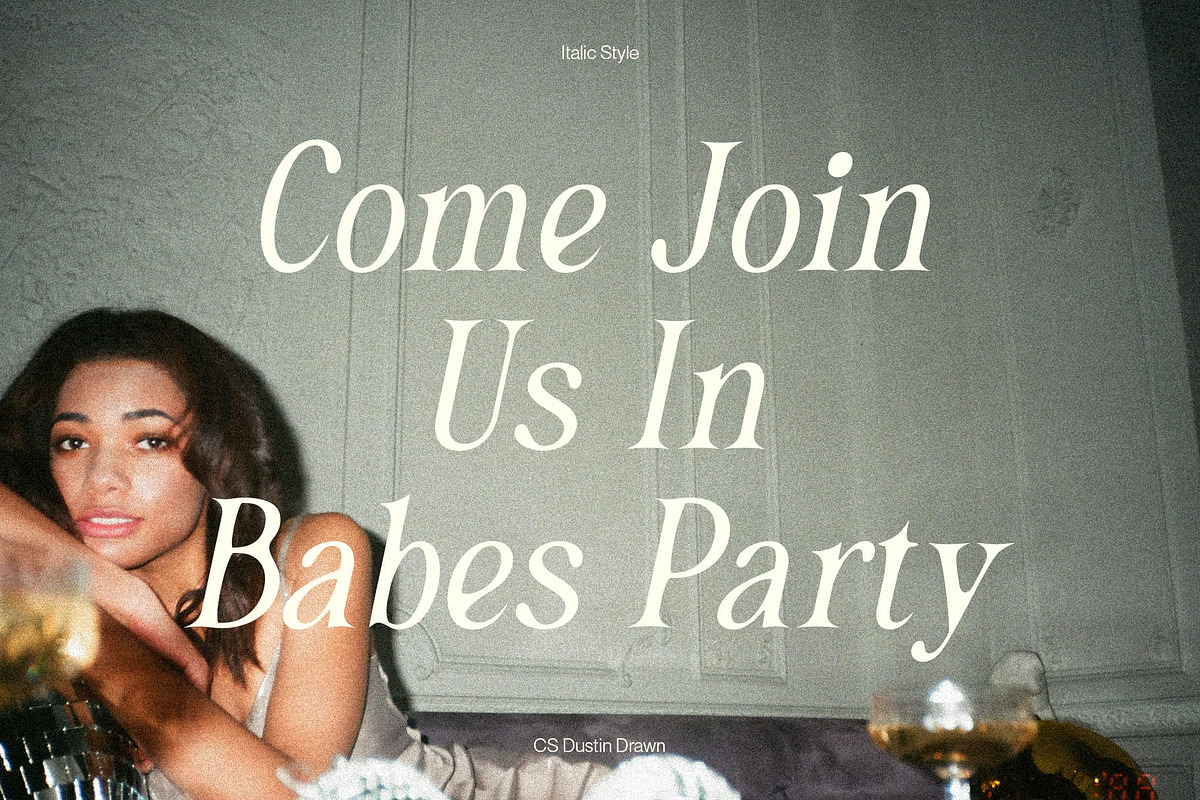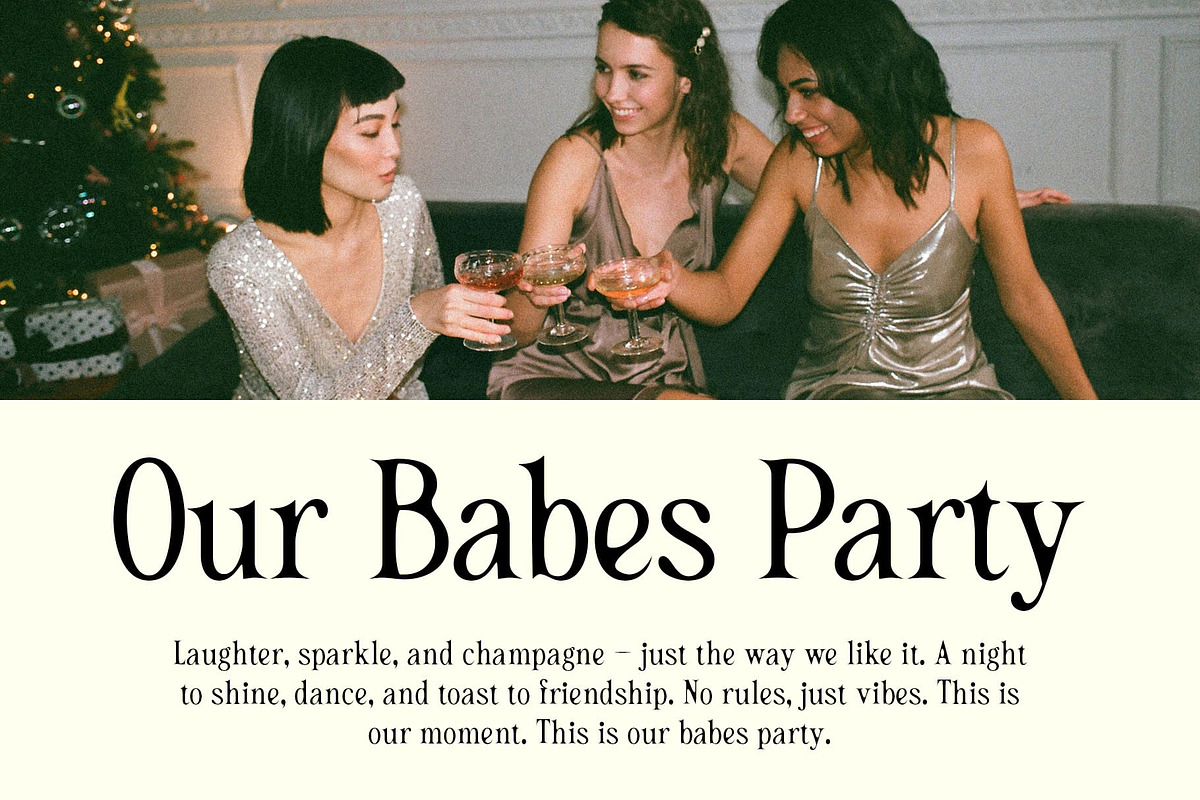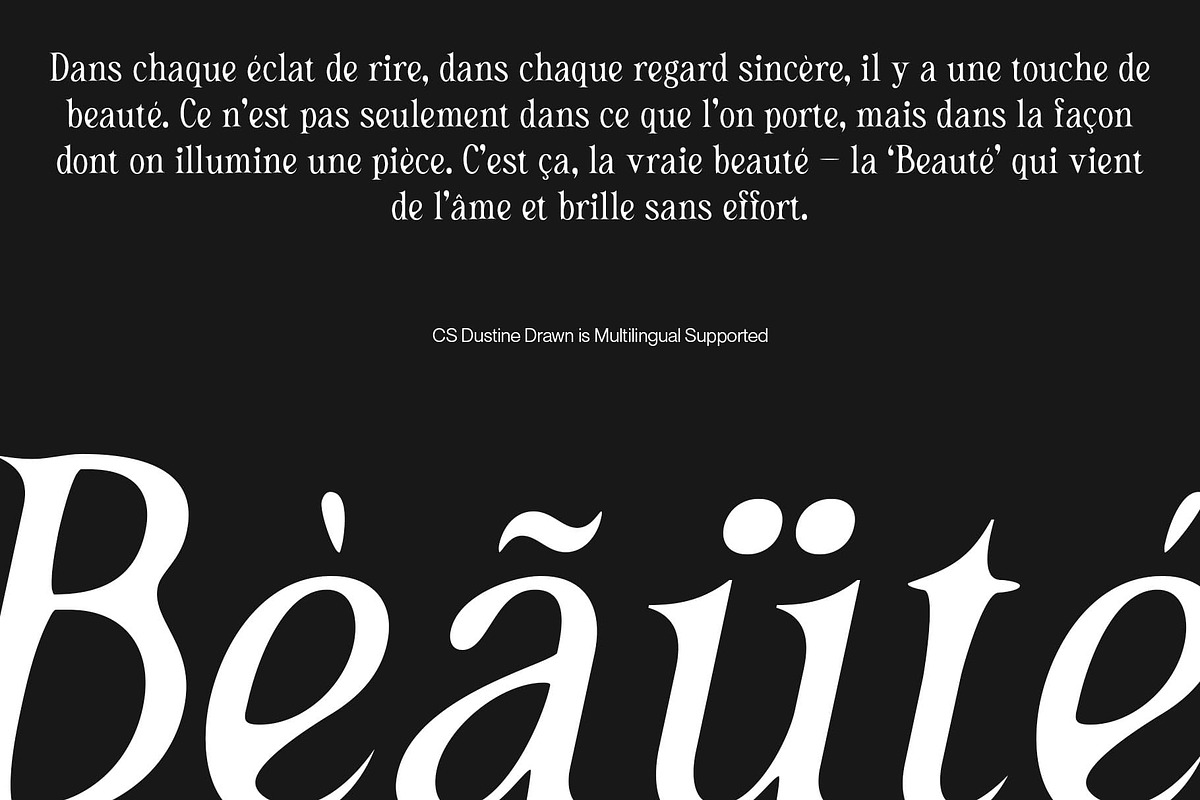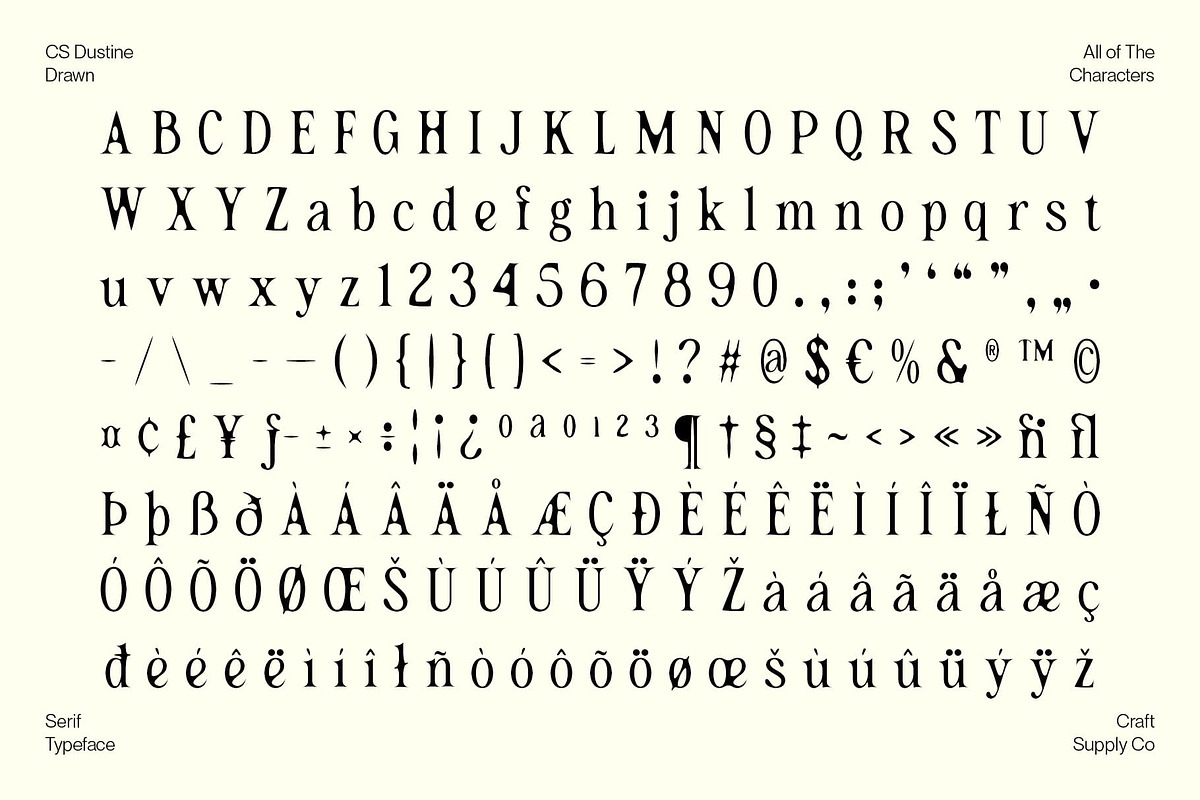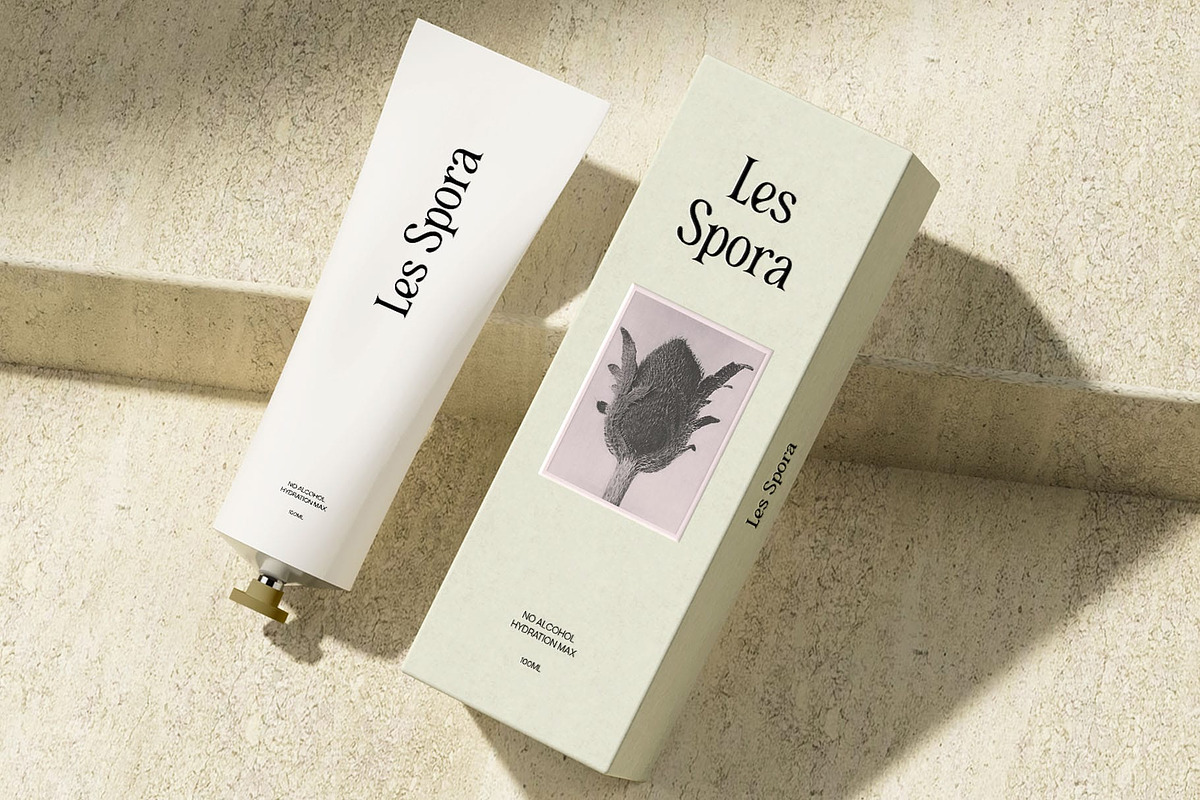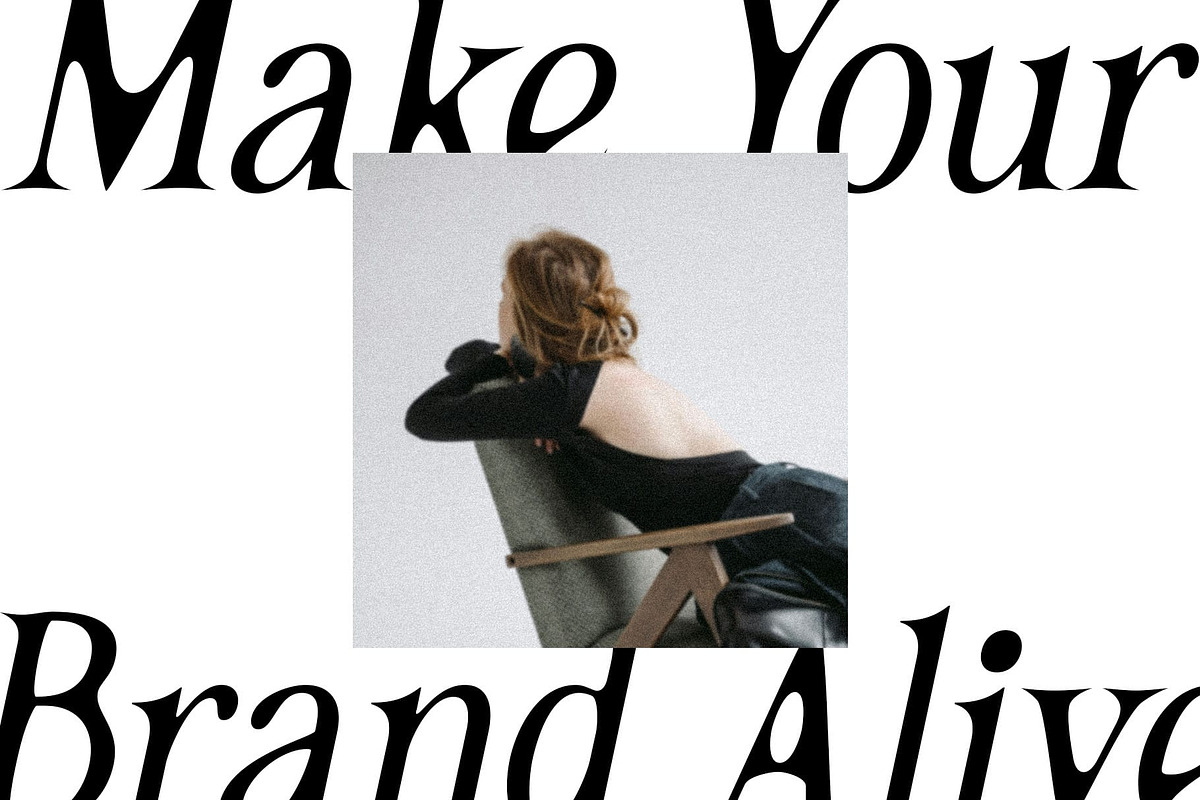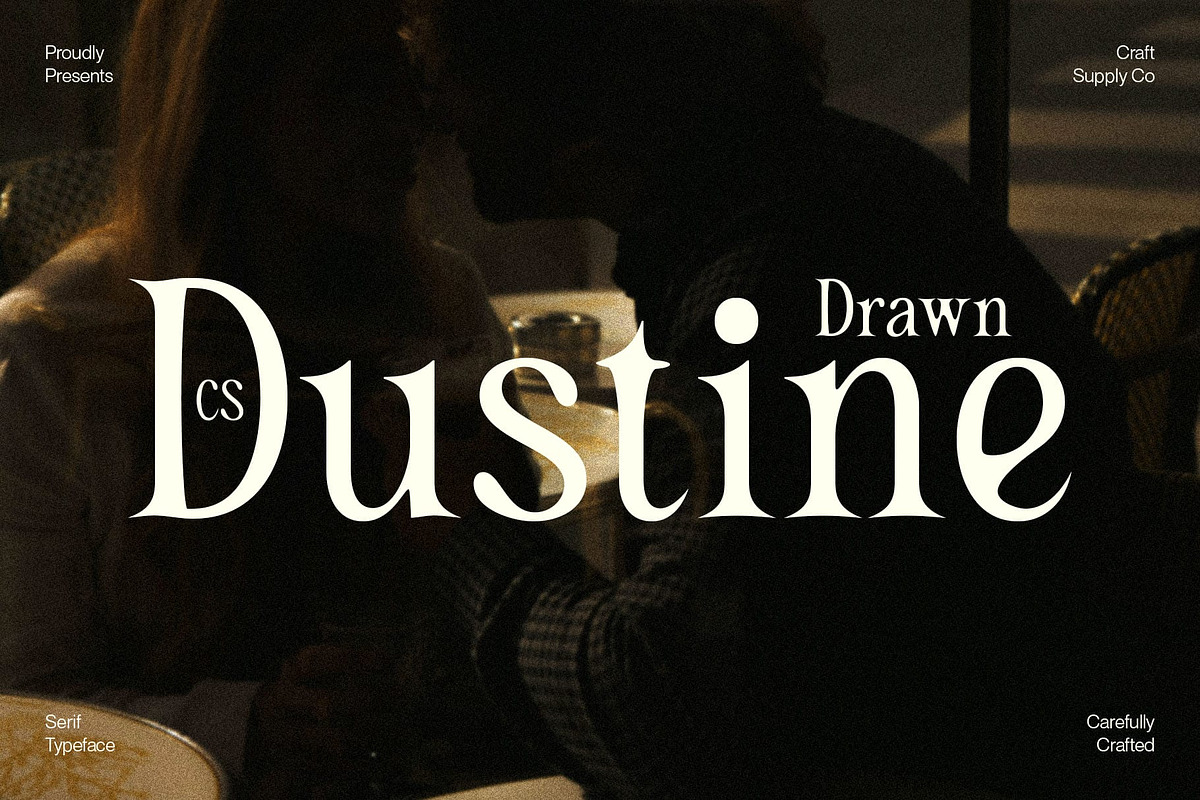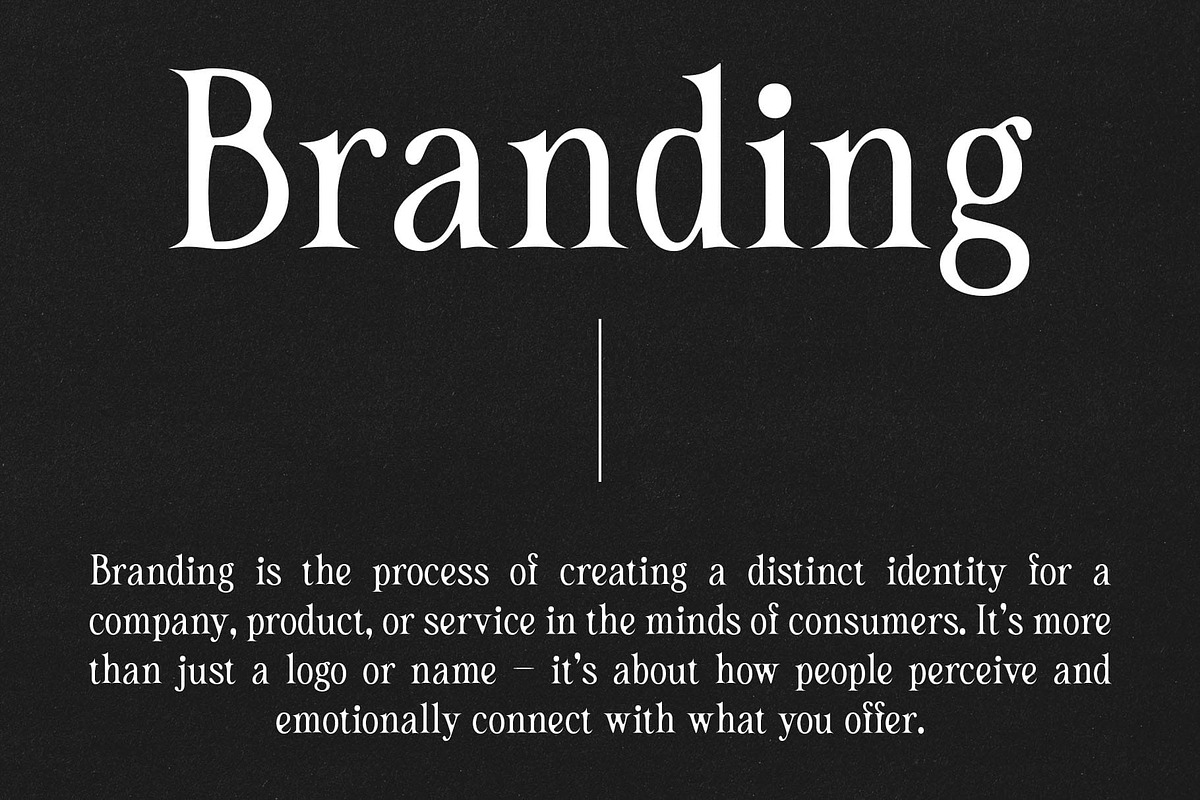
CS Dustine Drawn
CS Dustine Drawn – A Handcrafted Modern Serif with Elegant Appeal
Refined Elegance with a Personal Touch This is a modern serif font that effortlessly fuses classic letterform structure with a subtle hand-drawn texture. Its clean and contemporary shapes are softened by the drawn effect, giving it a graceful, artisanal charm that feels both timeless and modern.
Traditional Roots, Artistic Character Each letterform maintains refined serif detailing and a well-balanced proportion, evoking a sense of professionalism and sophistication. Yet, the drawn overlay introduces a layer of human warmth and creative imperfection, making it perfect for designs that value both structure and soul.
Versatile and Graceful for High-End Design Ideal for luxury branding, editorial layouts, product packaging, and invitations, this modern classic font brings a high-aesthetic presence to any visual communication. It’s especially well-suited for projects that require a touch of elegance, while still feeling artistic and approachable.
The Intersection of Precision and Personality This font doesn’t shout, but it speaks volumes. It conveys a sense of quiet confidence and creative finesse, perfect for designs that aim to evoke exclusivity, craftsmanship, and charm. Whether used in headlines or paired with minimal body text, this elegance font brings a unique texture that elevates the overall visual narrative.